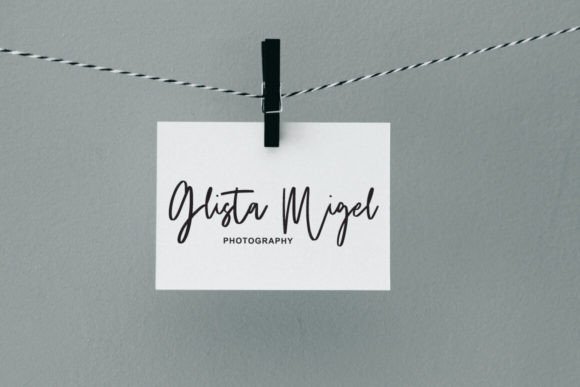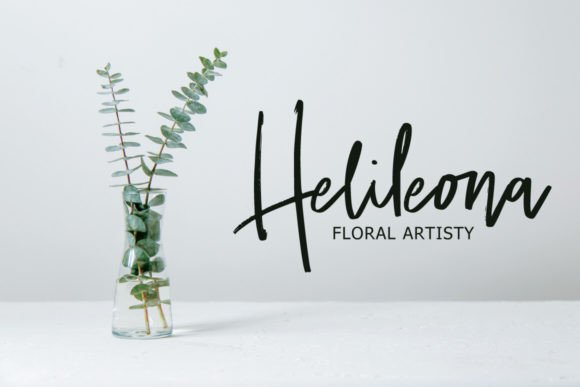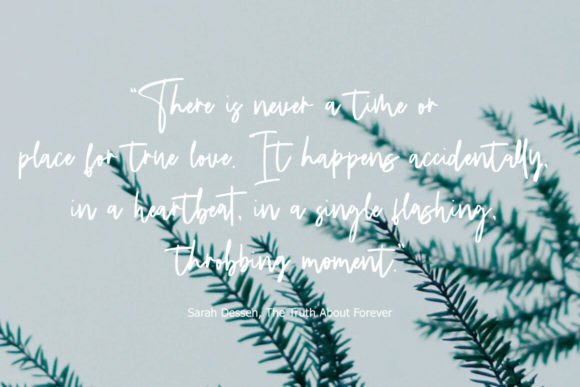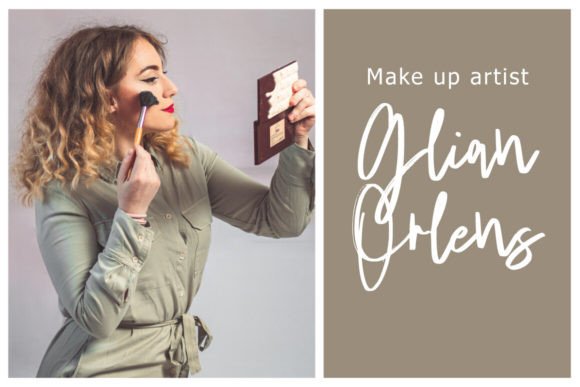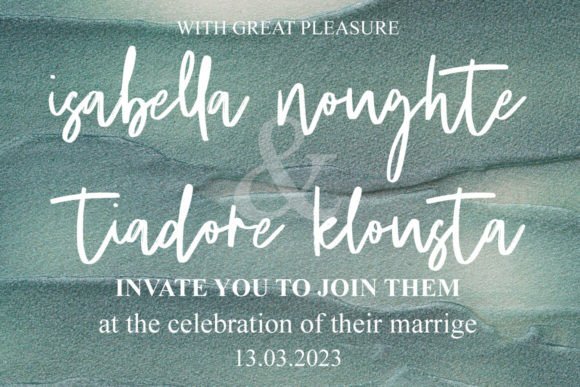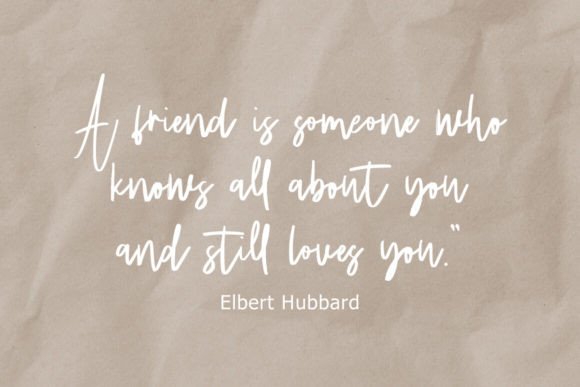
Introducing Fanidess Font: A Handmade Signature Style Masterpiece
Are you tired of using ordinary fonts that lack personality and flair? Look no further than Fanidess Font, a stunning handmade signature style font that is sure to elevate your designs to the next level. With its decorative characters, dancing baseline, and beautiful aesthetic, Fanidess is perfect for creating invitations, greeting cards, branding materials, business cards, quotes, posters, and more.
What Makes Fanidess Font So Special?
Fanidess Font is a true masterpiece, boasting an impressive array of features that set it apart from other fonts. Here are just a few of the things that make Fanidess so unique:
- Handmade Signature Style: Fanidess Font is carefully crafted by hand, giving it a unique and personal touch that is sure to make your designs stand out.
- Decorative Characters: The font features a range of decorative characters, including swashes, stylistic sets, and ligatures, which can be accessed using Open Type savvy programs.
- Dancing Baseline: The font’s dancing baseline adds a playful and whimsical touch to your designs, making them perfect for creating eye-catching invitations and posters.
- 200+ Glyphs: Fanidess Font comes with an impressive 200+ glyphs, giving you a wide range of options for customizing your designs.
Open Type Features: Unlocking the Full Potential of Fanidess Font
- Swash: Add a touch of elegance to your designs with the font’s swash feature.
- Stylistic Sets: Experiment with different stylistic sets to create unique and eye-catching designs.
- Stylistic Alternates: Use stylistic alternates to add variation and interest to your designs.
- Ligature: Create beautiful ligatures to add a touch of sophistication to your designs.
PUA Unicode: Making it Easy to Access Alternate Characters
Fanidess Font has been given PUA unicode (specially coded fonts), making it easy for crafters and designers to access all the alternate characters. This means that you can easily access the font’s 200+ glyphs, without needing to use complex software or have extensive design experience.
Fanidess Font is perfect for designers and crafters who want to add a personal touch to their designs. Whether you’re creating invitations, greeting cards, branding materials, or posters, Fanidess Font is sure to impress. The font’s handmade signature style, decorative characters, and dancing baseline make it perfect for:
- Wedding Invitations: Create beautiful and unique wedding invitations that will set the tone for the big day.
- Greeting Cards: Design eye-catching greeting cards for special occasions, such as birthdays, anniversaries, and holidays.
- Branding Materials: Use Fanidess Font to create stunning branding materials, such as business cards, letterheads, and brochures.
- Posters: Create eye-catching posters that will grab attention and leave a lasting impression.
In conclusion, Fanidess Font is a truly unique and special font that is sure to elevate your designs to the next level. With its handmade signature style, decorative characters, dancing baseline, and Open Type features, Fanidess Font is perfect for designers and crafters who want to add a personal touch to their designs. So why wait? Get your hands on Fanidess Font today and start creating stunning designs that will leave a lasting impression.